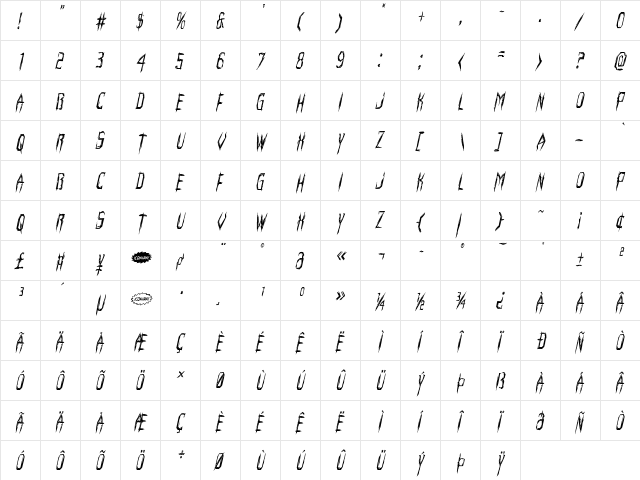
Horroroid Condensed Italic Condensed Italic
Design Context for Horroroid Condensed Italic Typeface
Horroroid Condensed Italic carries an unsettling edge — its distorted letterforms are built to unsettle, perfectly suited to horror, Halloween, and dark creative work. The slanted form adds forward momentum and visual energy.
Ideal for Halloween projects, horror film titles, haunted house signage, and dark editorial design.
Font Pairing: Pair with a clean neutral sans-serif for body copy to let Horroroid Condensed Italic's character lead without overwhelming the composition.
Pro Tip: Horroroid Condensed Italic works best as a headline or focal element. Pair it against plain, neutral body text to amplify the contrast.